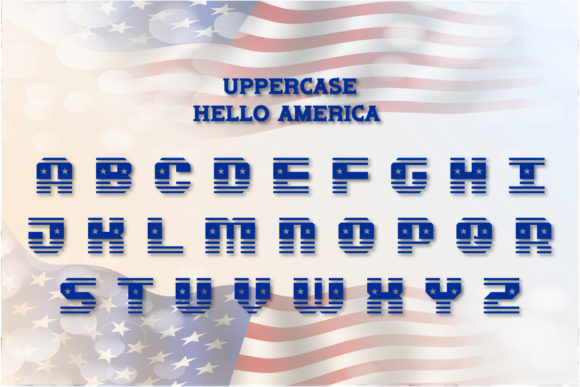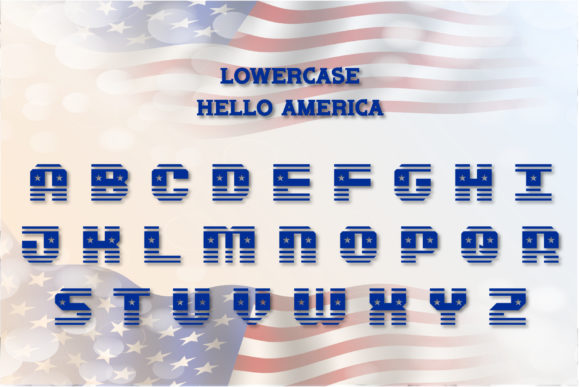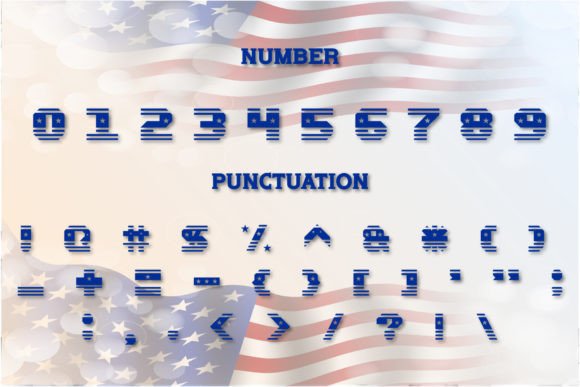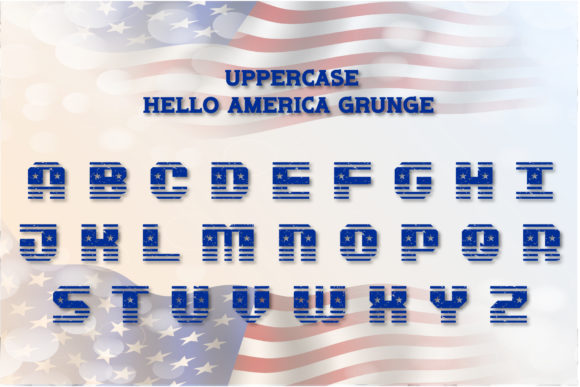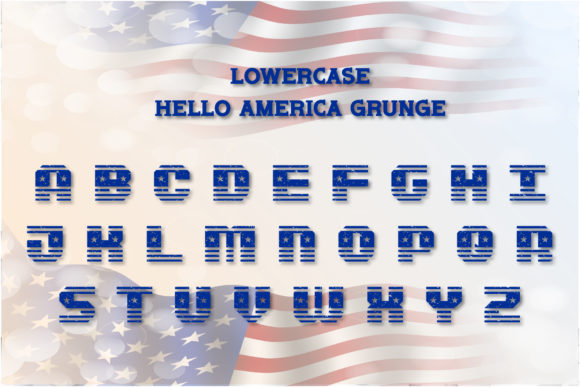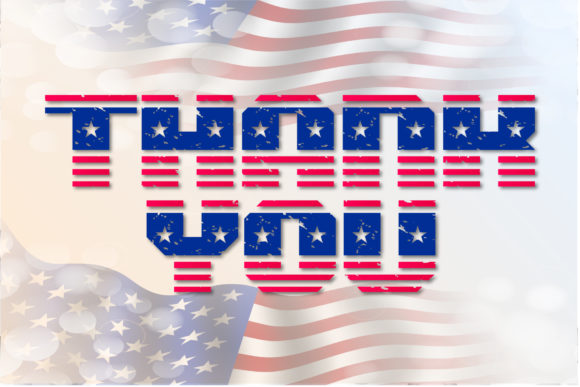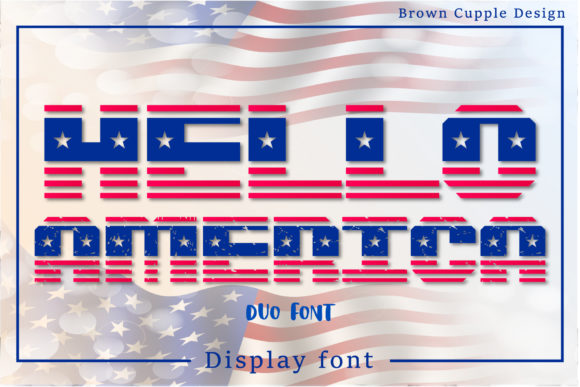
Hello America Font: A Bold and Assertive Display Font for Your Creative Projects
Are you looking for a font that can add a touch of boldness and assertiveness to your designs? Look no further than the Hello America font. This incredibly cool display font is perfect for a wide range of projects, from blog posts and logos to branding, ads, invitations, greeting cards, planners, photo albums, decorations, and much more.
What is Hello America Font?
Hello America font is a bold, modern, and eye-catching display font that is designed to make a statement. Its unique and assertive style makes it perfect for designers and crafters who want to add a touch of personality to their work. Whether you’re creating a logo, branding materials, or promotional products, Hello America font is sure to grab attention and leave a lasting impression.
Key Features of Hello America Font
- Bold and Assertive: Hello America font is designed to be bold and assertive, making it perfect for headlines, titles, and other display text.
- Versatile: This font is incredibly versatile and can be used for a wide range of projects, from digital designs to print materials.
- Easy to Read: Despite its bold style, Hello America font is easy to read, making it perfect for body text as well as headlines.
- Unique Style: Hello America font has a unique style that sets it apart from other fonts, making it perfect for designers and crafters who want to add a touch of personality to their work.
Uses of Hello America Font
Hello America font is perfect for a wide range of projects, including:
- Blog Posts: Add a touch of boldness and personality to your blog posts with Hello America font.
- Logos and Branding: Use Hello America font to create eye-catching logos and branding materials that will help your business stand out.
- Ads and Promotional Materials: Hello America font is perfect for ads, flyers, brochures, and other promotional materials.
- Invitations and Greeting Cards: Add a touch of personality to your invitations and greeting cards with Hello America font.
- Planners and Photo Albums: Use Hello America font to add a bold and assertive touch to your planners and photo albums.
- Decorations: Hello America font is perfect for creating eye-catching decorations, such as posters, banners, and signs.
Tips for Using Hello America Font
Here are a few tips for using Hello America font:
- Use it Sparingly: Hello America font is bold and assertive, so use it sparingly to avoid overwhelming your design.
- Pair it with Other Fonts: Hello America font pairs well with other fonts, so don’t be afraid to experiment with different combinations.
- Experiment with Colors: Hello America font looks great in a variety of colors, so experiment with different colors to find the one that works best for your design.
Hello America font is a bold, incredibly cool, and assertive display font that is perfect for a wide range of projects. Its unique style and versatility make it a must-have for designers and crafters who want to add a touch of personality to their work. Whether you’re creating a logo, branding materials, or promotional products, Hello America font is sure to grab attention and leave a lasting impression.